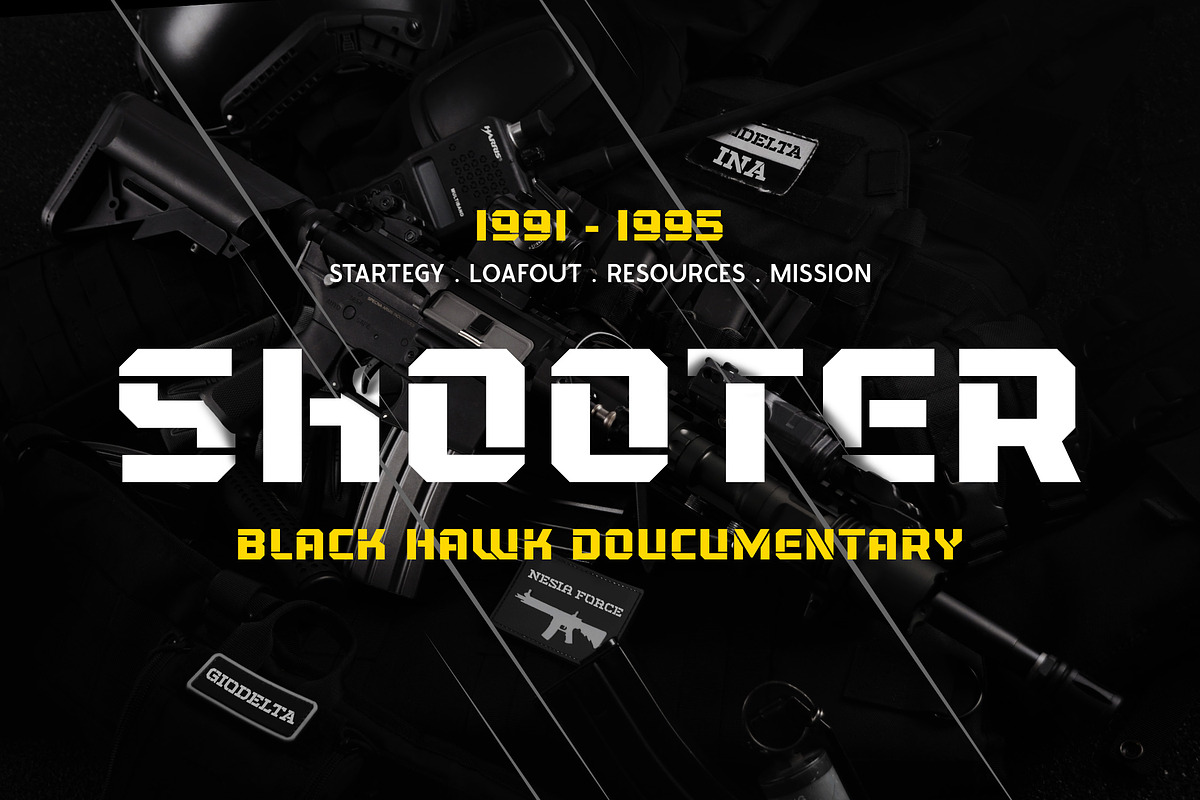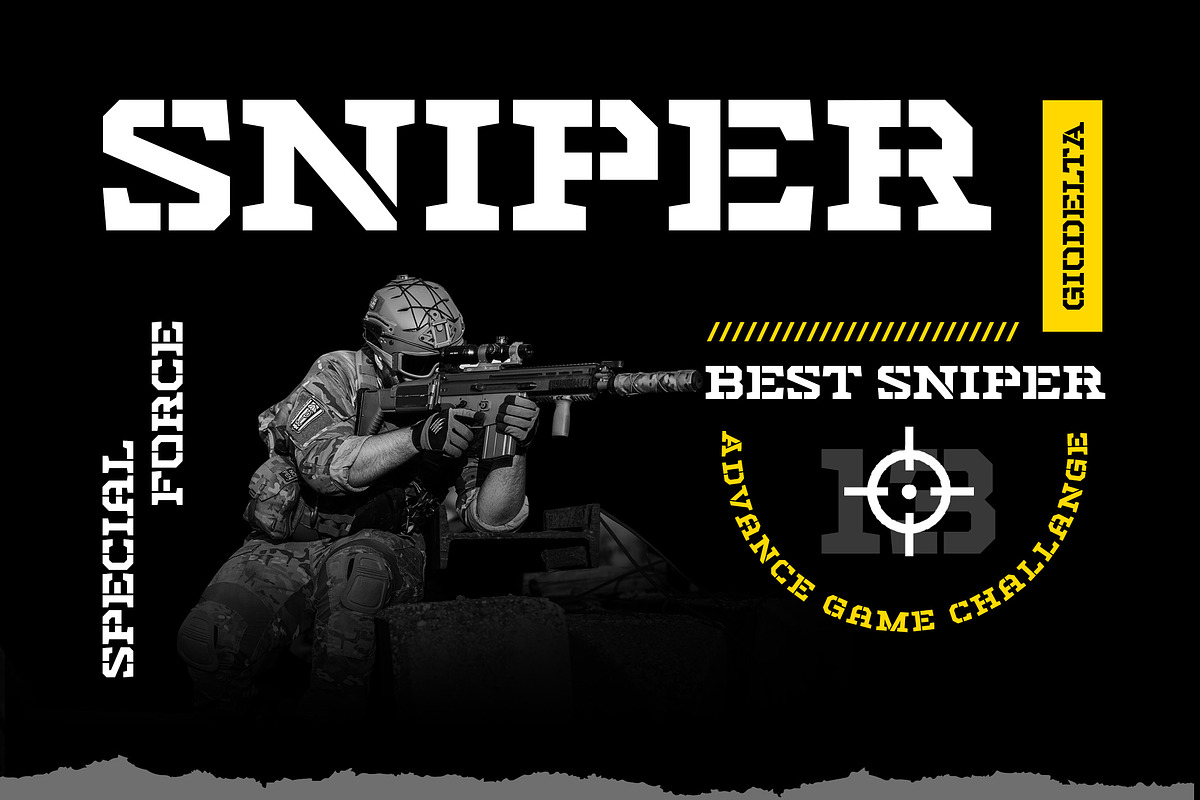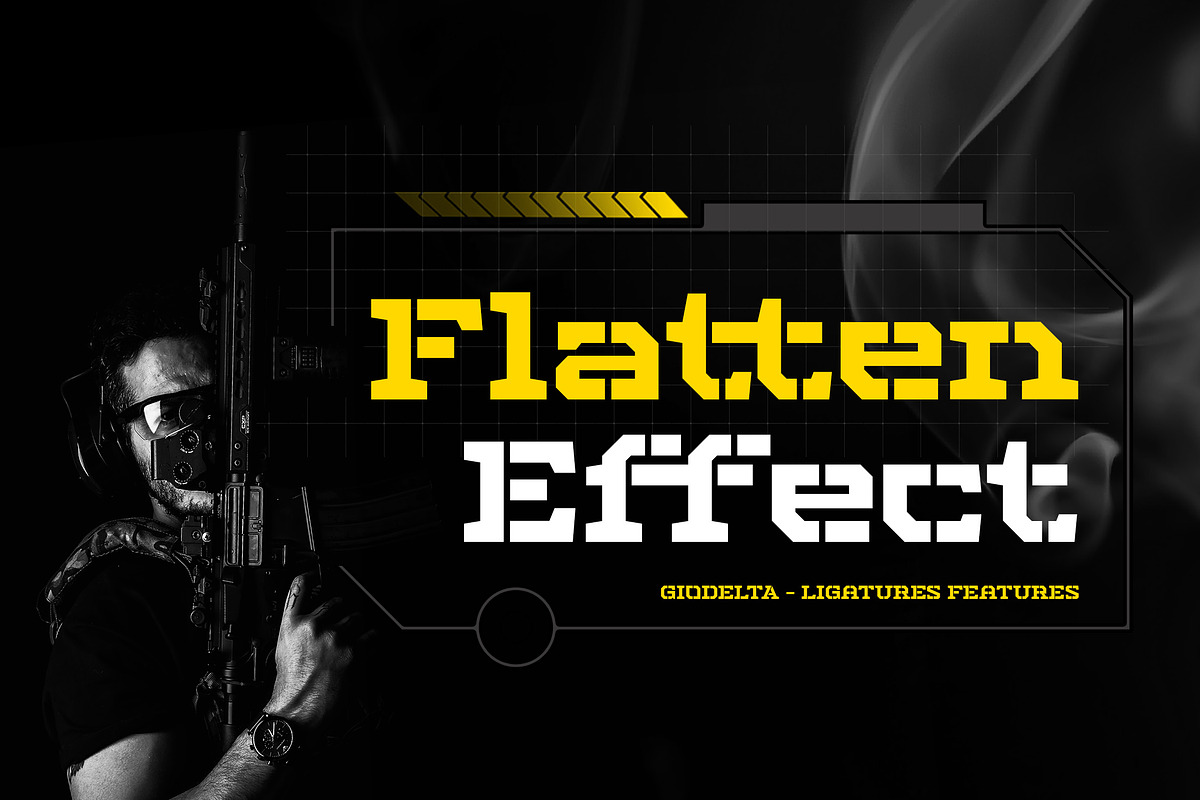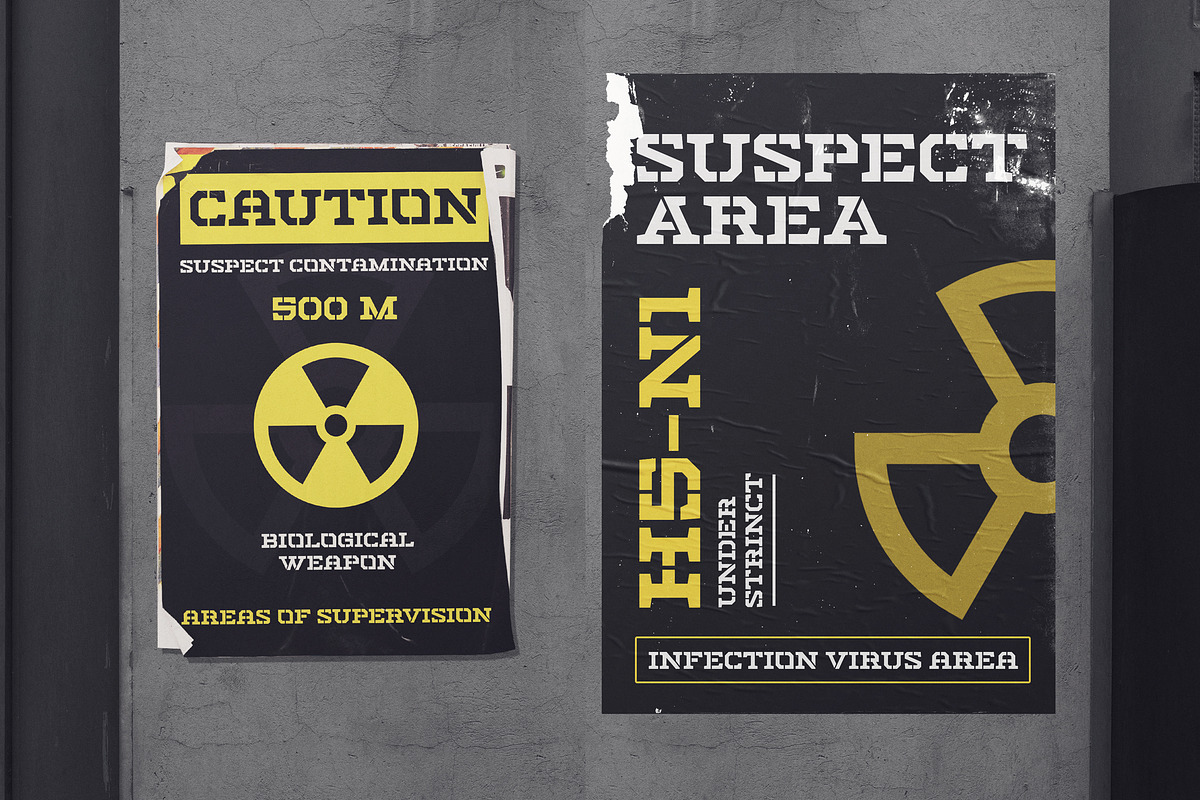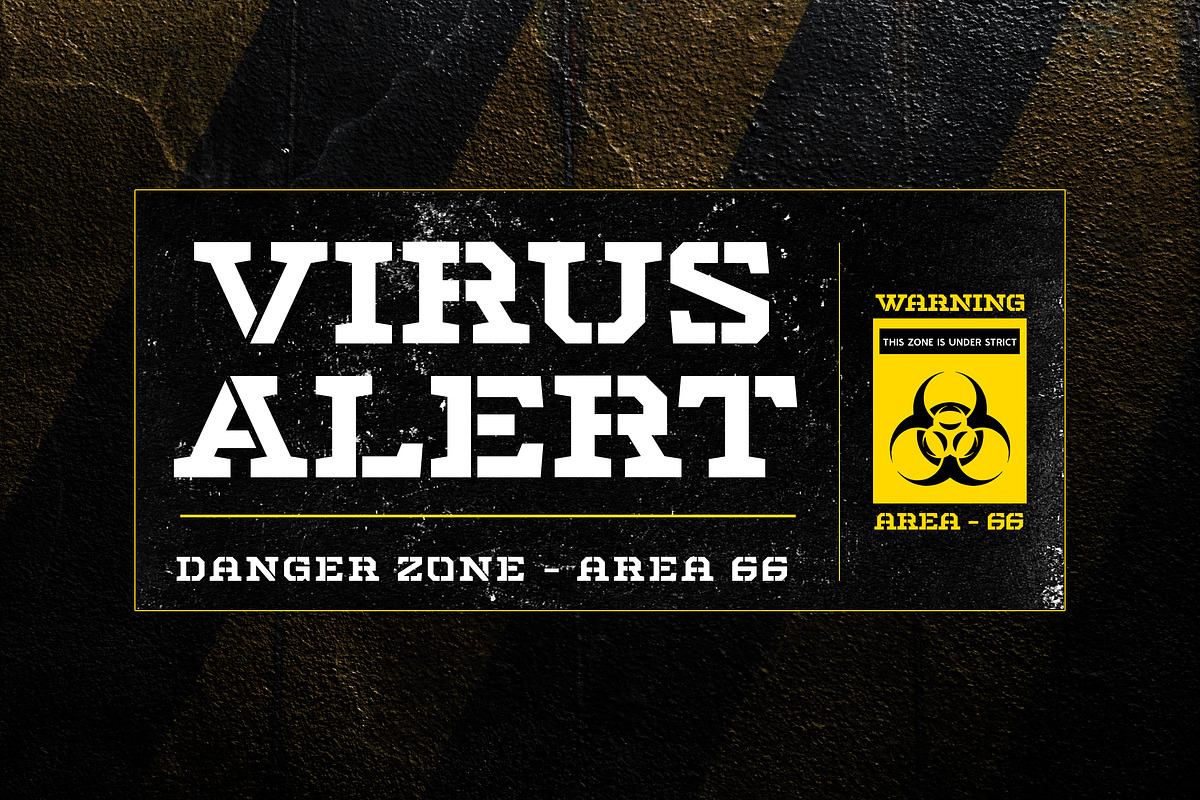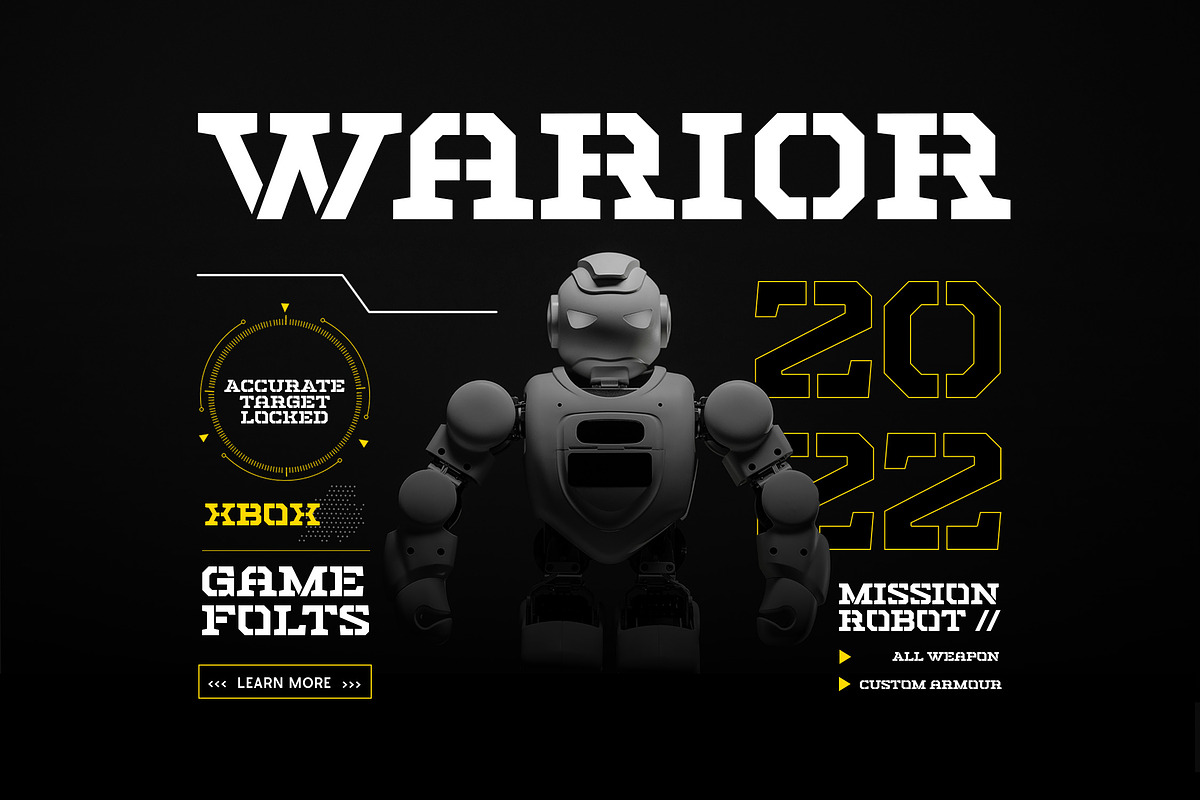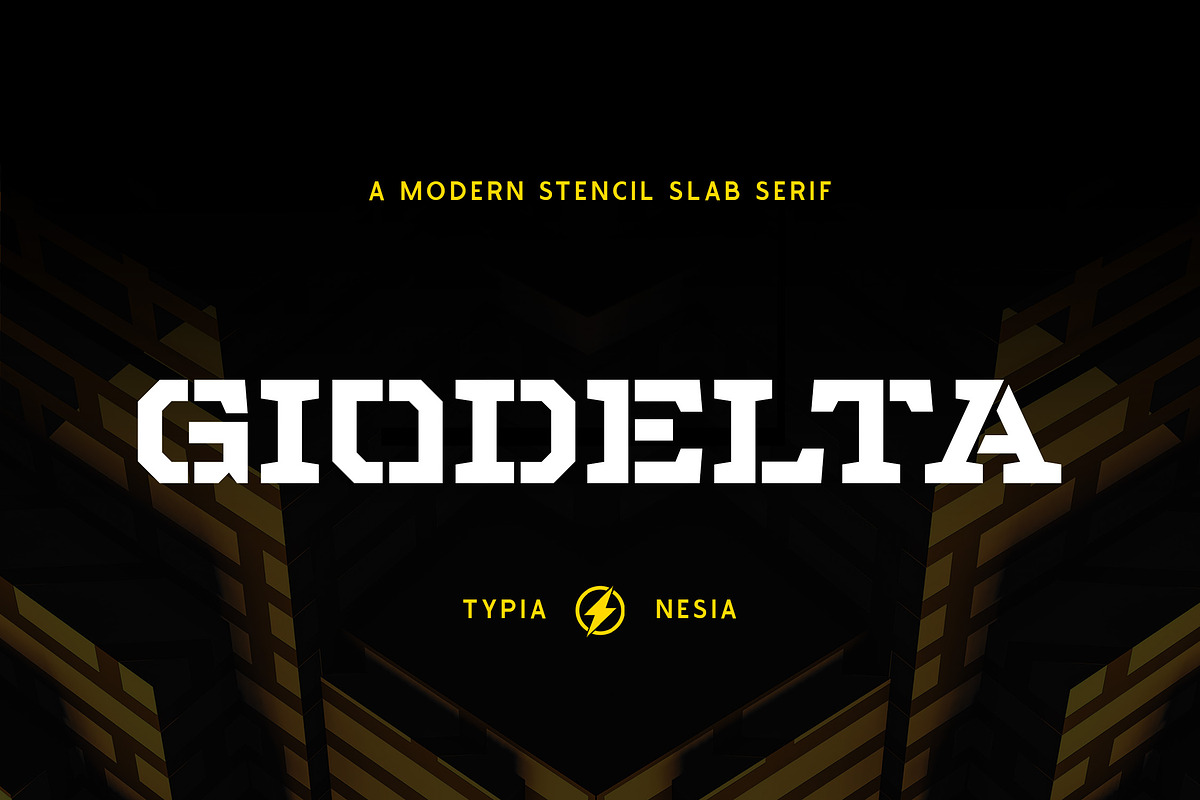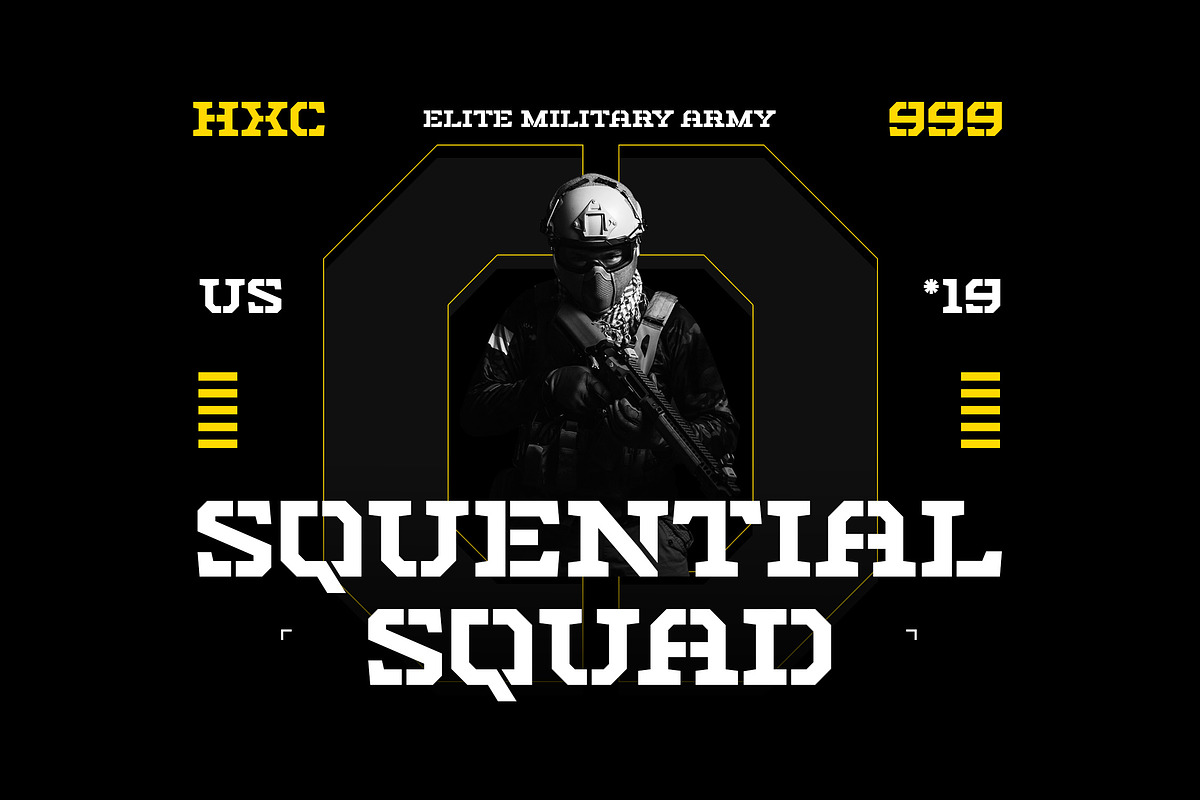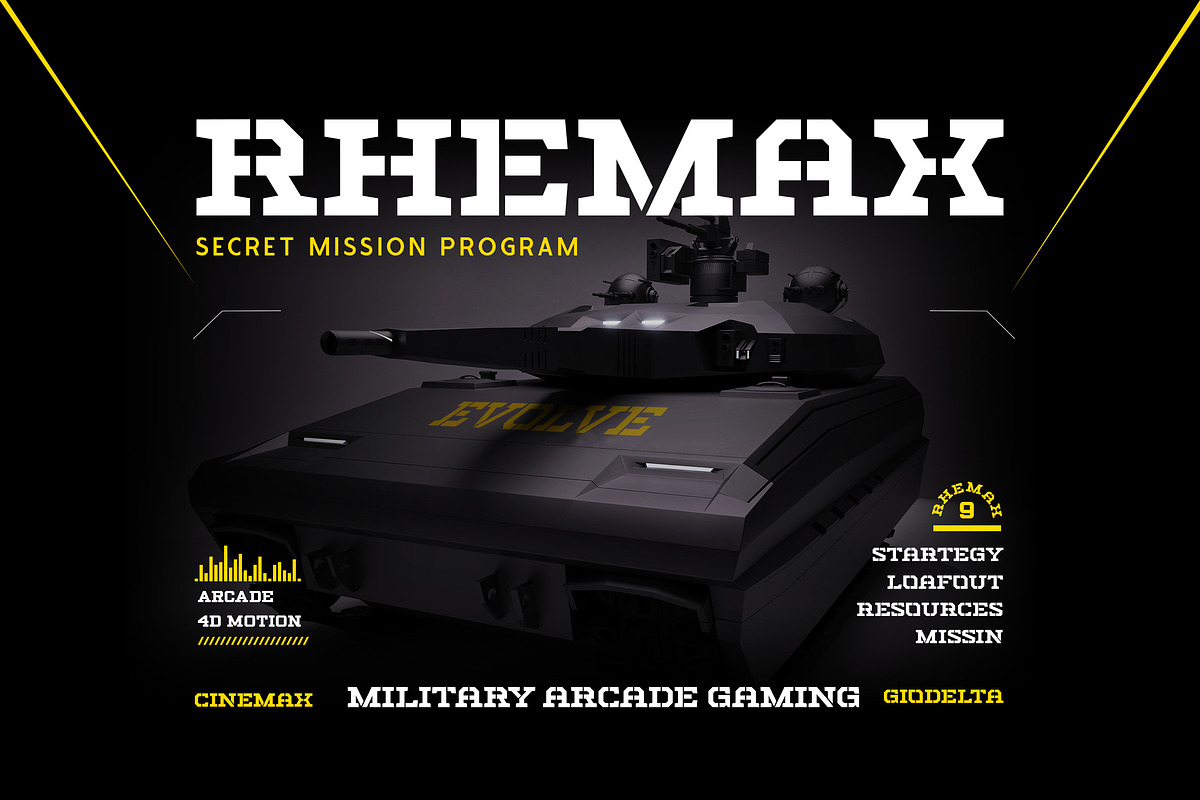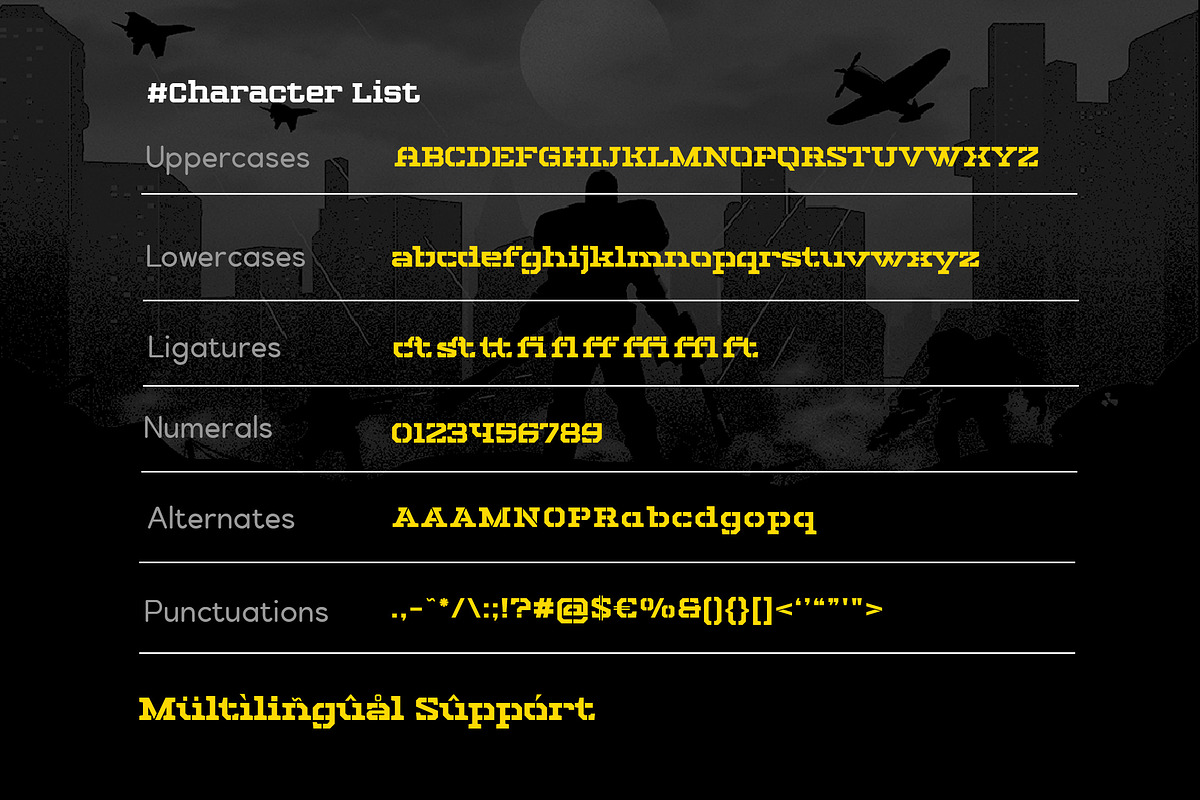
Giodelta - Stencil Slab Serif
Giodelta - Stencil Bold Slab Serif - Military Game Font - Racing Sport Display Font
Giodelta Slab Serif Font is perfect for your up coming projects. Such as logo branding, editorial design, stationery design, sport design, 80s retro design, esport game industry, sport racing, super car brand, music poster, blog design, modern advertising design, card invitation, art quote, home decor, book/cover title, special events and any more.